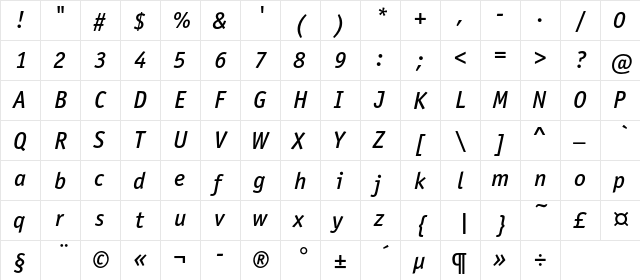
OfficinaSansMediumC Italic
Design Context for OfficinaSansMediumC Typeface
OfficinaSansMediumC takes a measured approach to typography — its balanced proportions and neutral character make it a reliable workhorse for both digital and print work. The dynamic lean of this cut emphasises speed and emphasis in any layout.
Pro Tip: Try OfficinaSansMediumC for annotation and caption copy alongside an upright companion — the contrast in angle creates a dynamic but ordered typographic system.